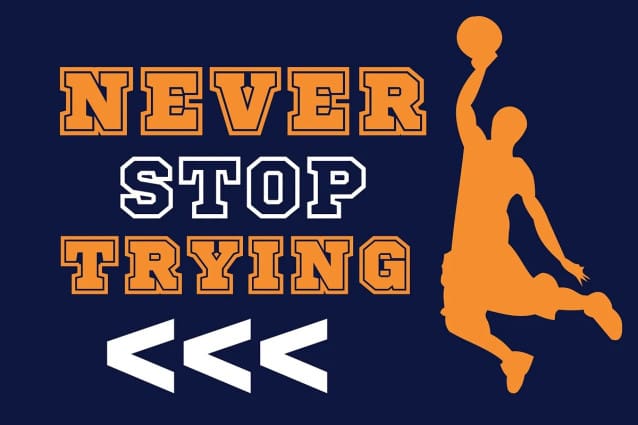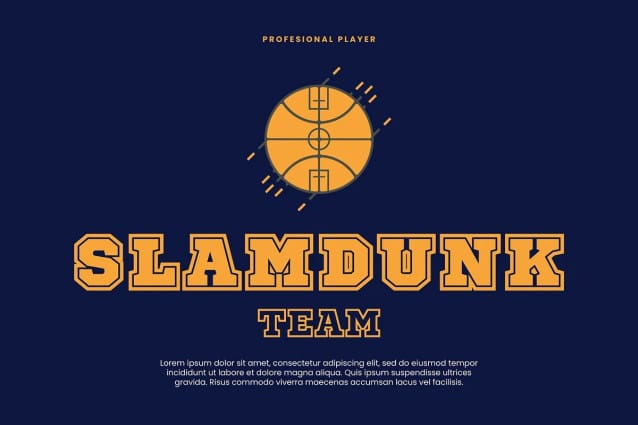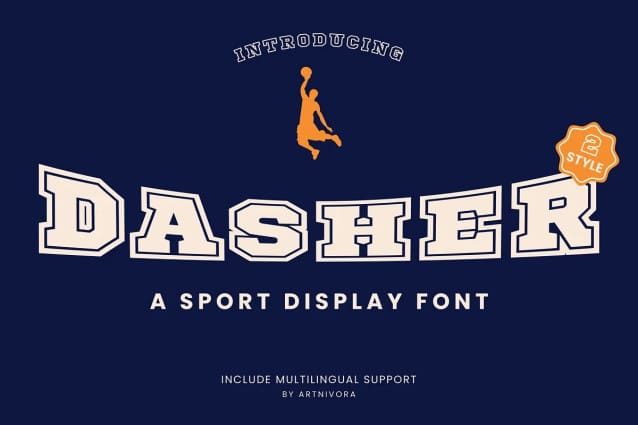
Dasher Display Font
Dasher Display Font, a simple and display font. So perfect for you who needs a typeface for logo designs, magazine, social media, brochure, and many more.